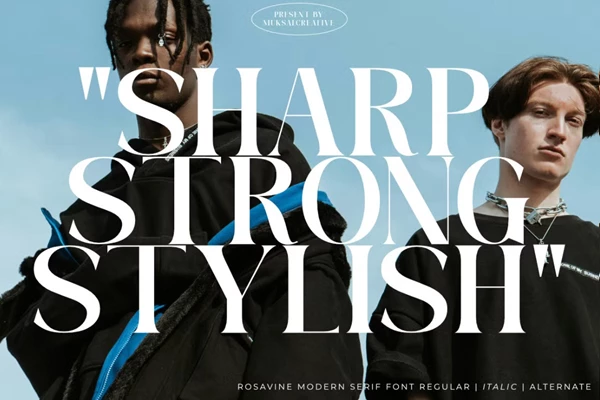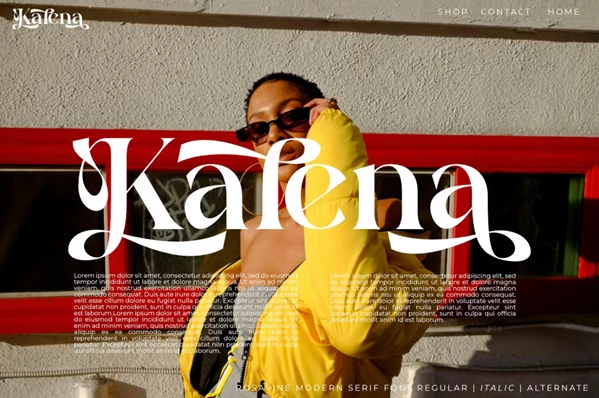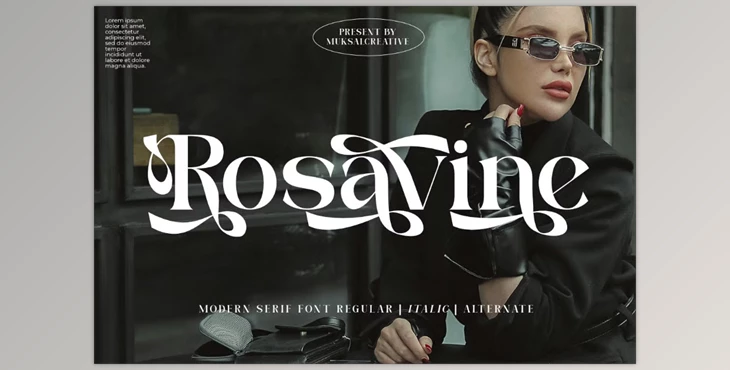
Rosavine Font:
Rosavine is a lovely serif font that combines classic and artistic appeal. The high contrast and beautiful curves make it a suitable choice for anything from editorial design, luxury brands, wedding invitations, and high-end packaging. Whether you want a clean or decorative look, Rosavine is there for you. You can use the regular stylish characters or employ the decorative alternates to achieve the desired visual outcome.
Some great features of Rosavine Font:
- Uppercase and lowercase glyphs
- Multilingual support
- Alternates and ligatures (ss01)
- Punctuation and currency
"Rosavine Font" Samples: